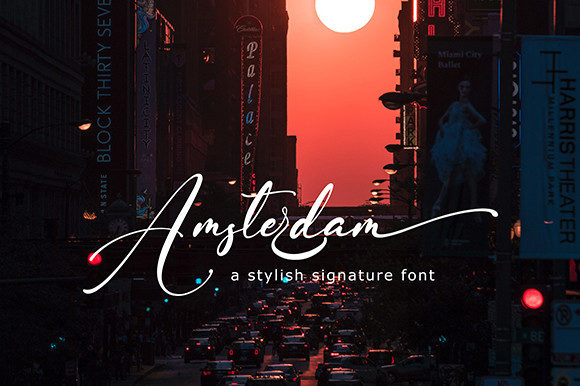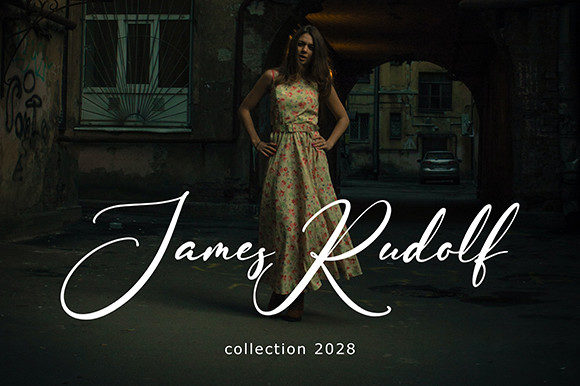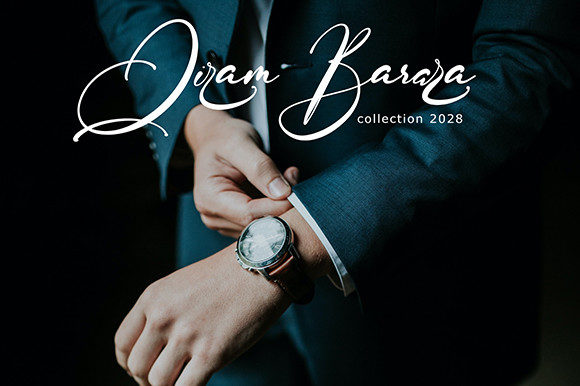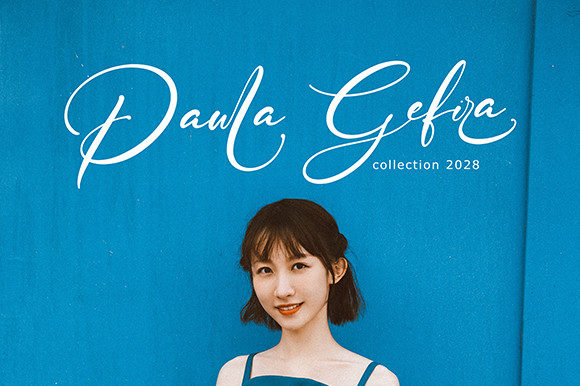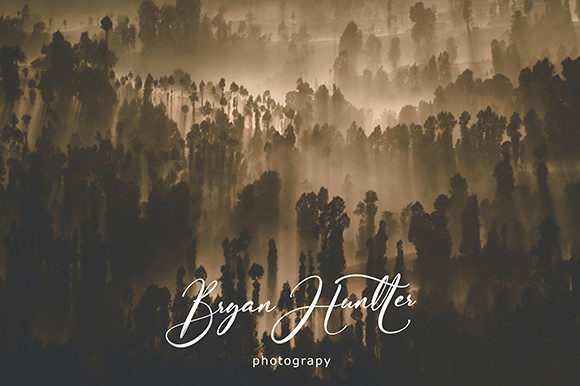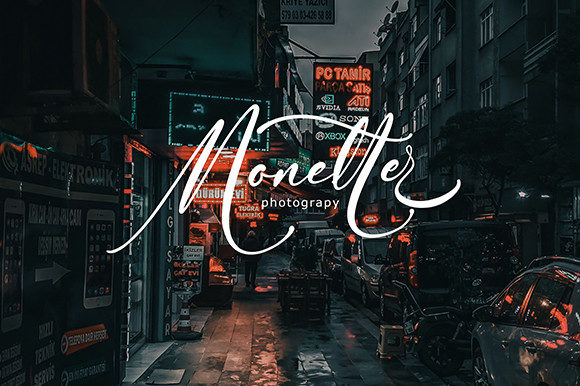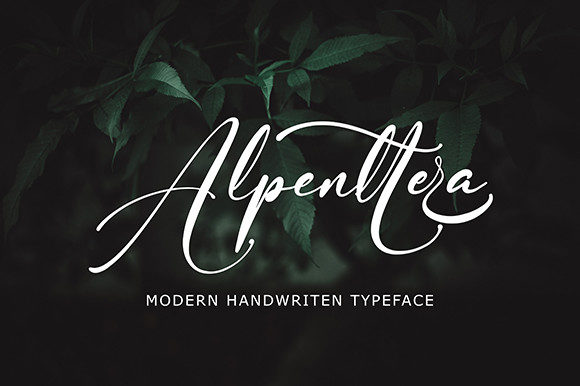
The Alpenttera Font: A Designer’s New Best Friend
I’ll never forget the design project that led me to discover the Alpenttera font. I was working on a branding project for a luxury boutique hotel, and I was struggling to find the perfect font that exuded both elegance and modernity. The client wanted a sophisticated, high-end feel, but also something fresh and contemporary. After hours of scouring font websites and testing out different options, I stumbled upon Alpenttera – and it was love at first sight! 💕
So, what makes Alpenttera so special? Here are a few things that I absolutely adore about this font:
• ✨ Classy calligraphic influences: Alpenttera has a beautiful, elegant feel that’s perfect for luxury brands, wedding designs, and high-end marketing materials.
• ✅ Contemporary and fresh: Despite its classic influences, Alpenttera feels modern and on-trend, making it perfect for designers who want to create something new and exciting.
• 💫 PUA encoded for easy access: Alpenttera is PUA (Private Use Area) encoded, which means you can access all of the glyphs and swashes with ease – no more tedious font hacking required!
• 🤔 Limited language support: Alpenttera is designed primarily for English and Western European languages, so if you need to support other languages, you may want to double-check the character set.
• ⚠️ Some glyphs may require manual adjustment: While Alpenttera is PUA encoded, some glyphs may require manual adjustment to get the perfect look – but trust me, it’s worth the extra effort!
The Story Behind Alpenttera
While I couldn’t find any information on the exact design story behind Alpenttera, I like to imagine that it was created by a team of designers who wanted to craft a font that would make designers’ lives easier. Perhaps they were inspired by the beauty of the Swiss Alps and wanted to bottle up that elegance in a font. Whatever the inspiration, Alpenttera is a true design gem!